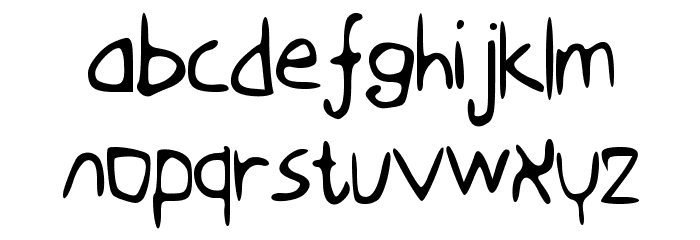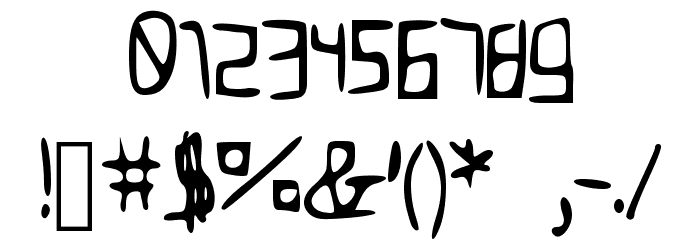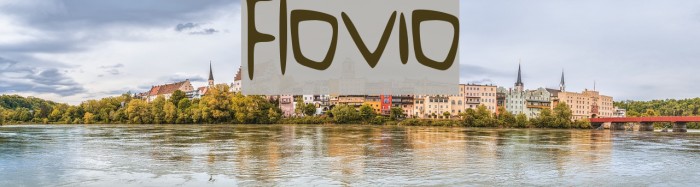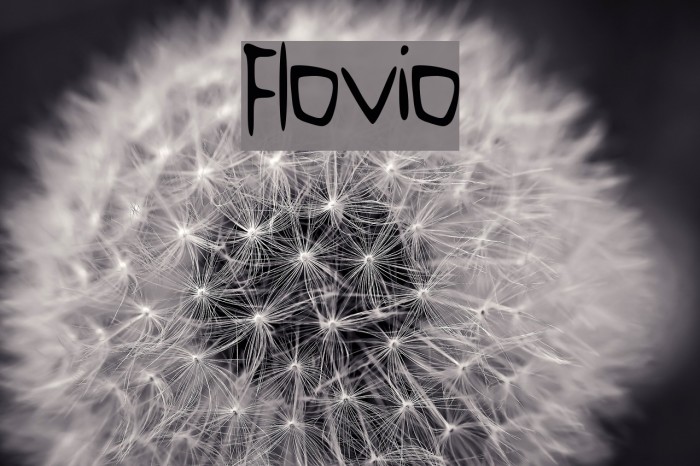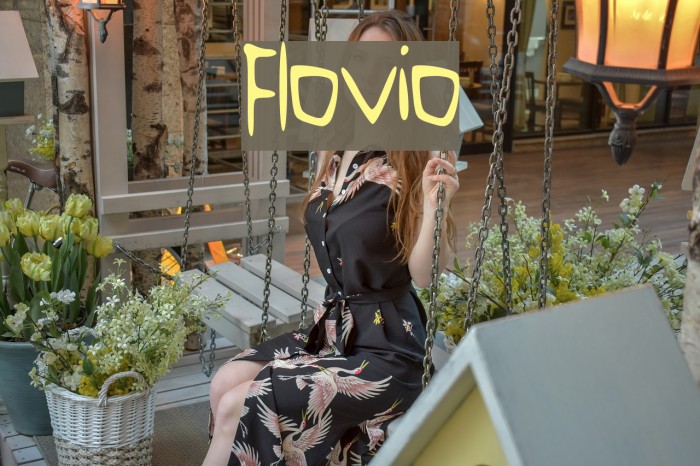
Flovio Font
This font features a playful and quirky design with irregular, hand-drawn strokes that give it a unique and artistic feel. The characters are slightly elongated with varying stroke thickness, adding to its whimsical appearance. The uppercase and lowercase letters maintain a consistent style, with a casual and informal look. The numbers and special characters follow the same design principles, ensuring a cohesive overall appearance. This font's distinctiveness makes it suitable for creative and fun projects where a touch of personality is desired.
A playful, hand-drawn font with irregular strokes and a whimsical style.
- Proposed Projects: Ideal for children's books, creative posters, casual branding, and artistic invitations.